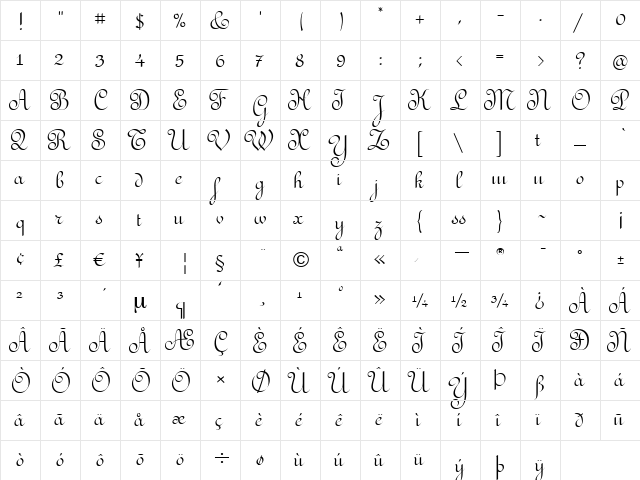
RedondaFancyITC TT Regular
| Foundry | International Typeface Corporation |
| Designer | Gβard Mariscalchi |
Design Context for RedondaFancyITC TT Typeface
RedondaFancyITC TT is a composed and adaptable typeface that performs quietly and consistently across a wide range of design contexts.